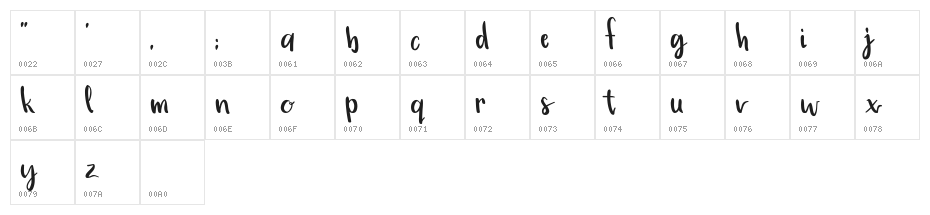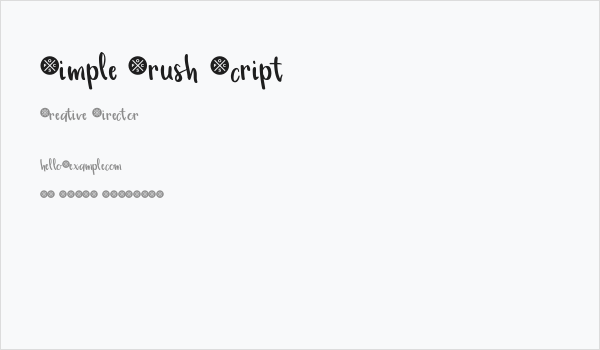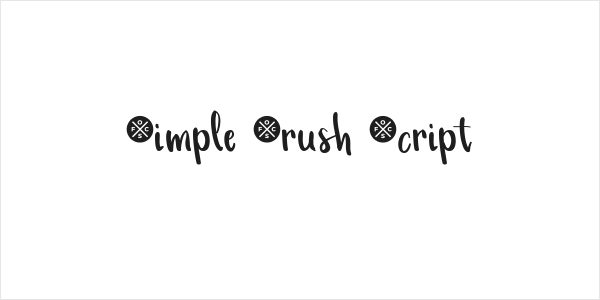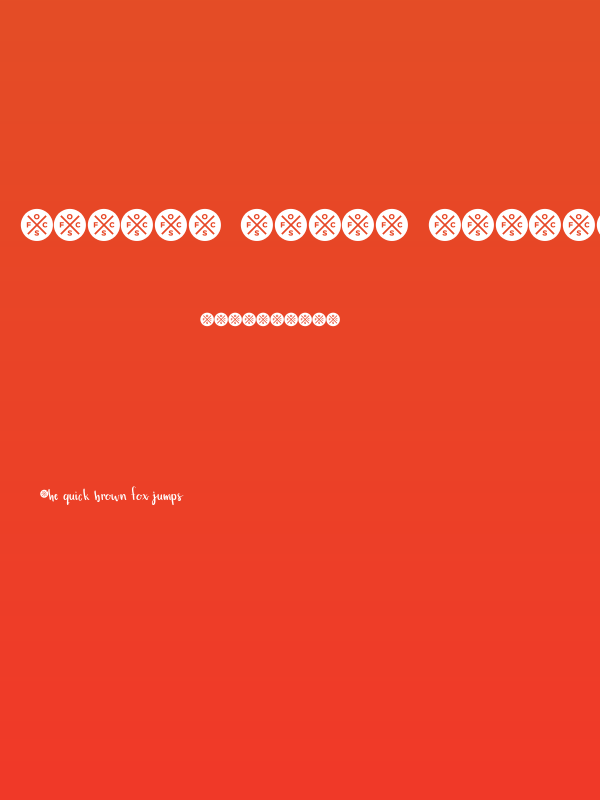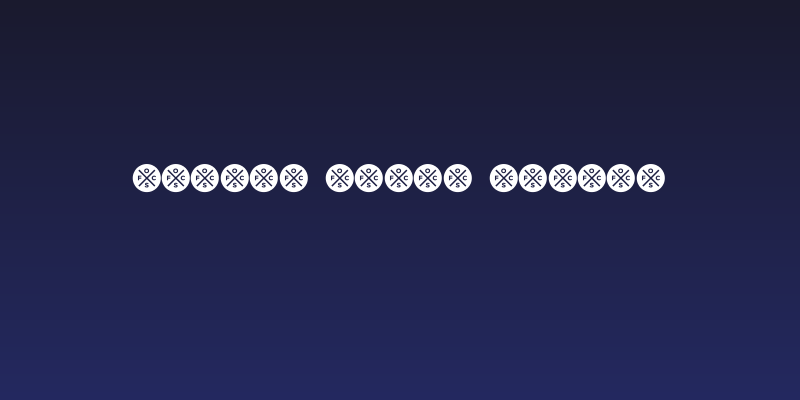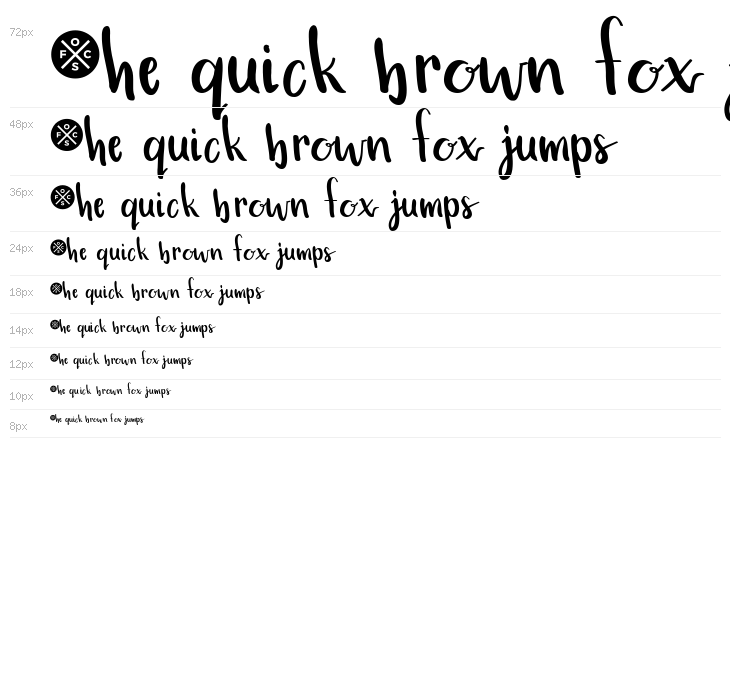
Simple Brush Script Font
Simple Brush Script Description
This font features a casual, handwritten style with a brush script aesthetic. The letters are fluid and connected, giving a sense of movement and personality. The strokes vary in thickness, adding a dynamic and lively feel to the text. The lowercase letters are particularly expressive, with playful loops and curves that enhance the informal and friendly appearance. This font is ideal for projects that require a personal touch, such as invitations, greeting cards, or branding materials that aim to convey warmth and approachability.
| Overall Style | Casual, Handwritten |
| Use Case | Logos, Invitations, Greeting Cards |
| Proposed Projects | Perfect for invitations, greeting cards, personal branding, and creative projects needing a warm, personal touch. |